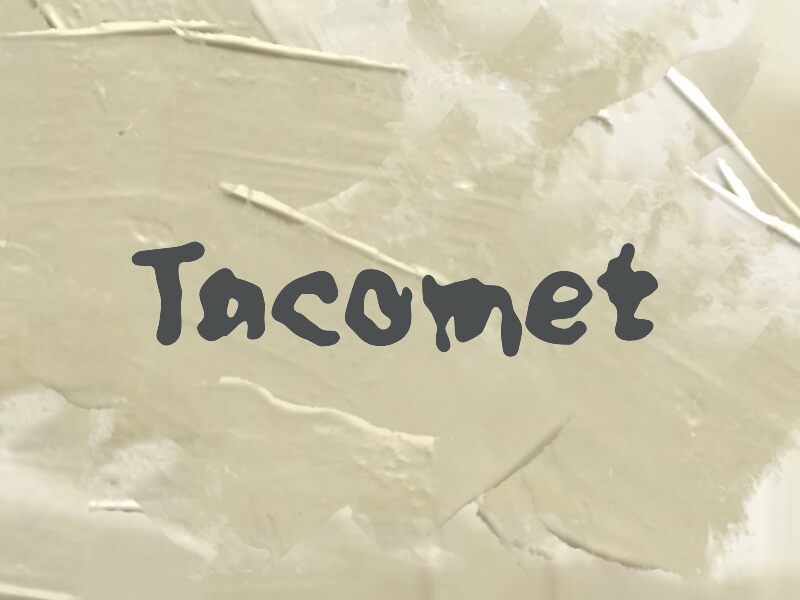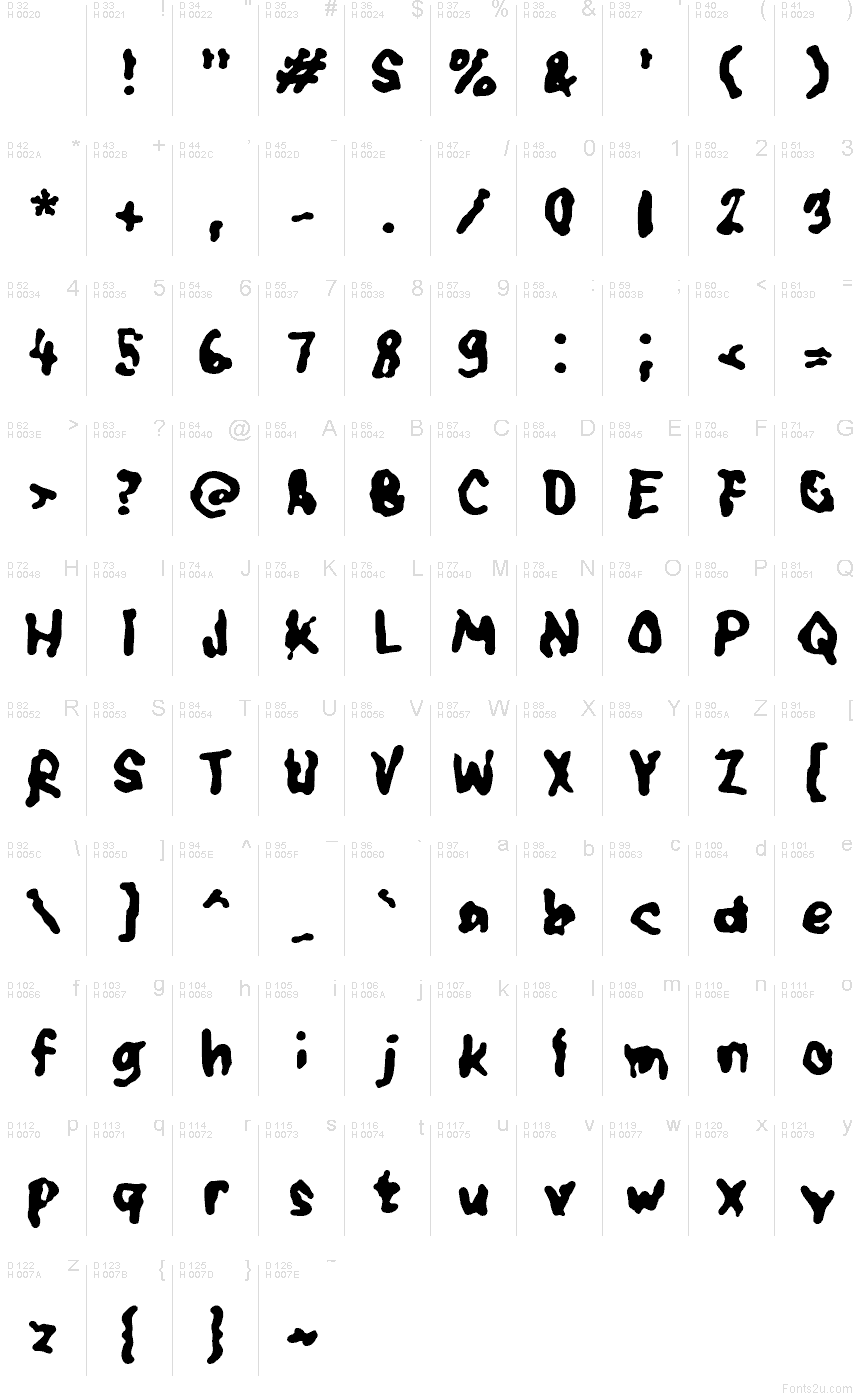
Tacomet by Wep is a free melted display font with a shaggy, hand-pressed feel. The letters look soft, swollen, and slightly off-balance, as if they were cut from rubber and left to slump, which gives the word shapes a playful monster-movie wobble.
It suits poster headlines, music flyers, zine covers, snack packaging, and title cards where a free font can carry the whole mood by itself. Because the forms puddle and bulge instead of staying neat, Tacomet works best in short phrases, big names, and other brief display spots where that gooey silhouette can do the talking.
Tacomet